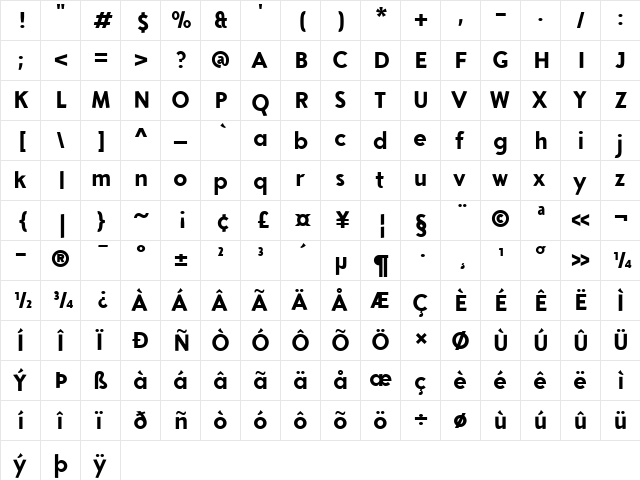
Aron Grotesque Black
Design Context for Aron Grotesque Typeface
Aron Grotesque takes a measured approach to typography — its balanced proportions and neutral character make it a reliable workhorse for both digital and print work.